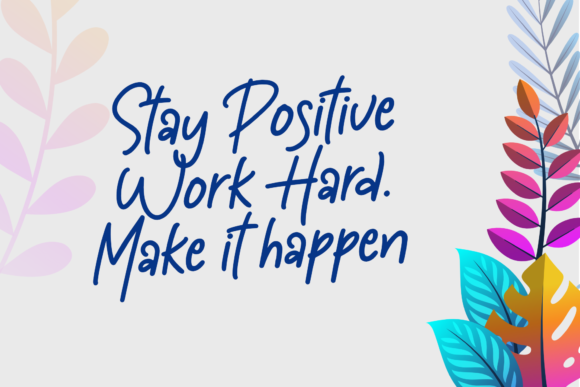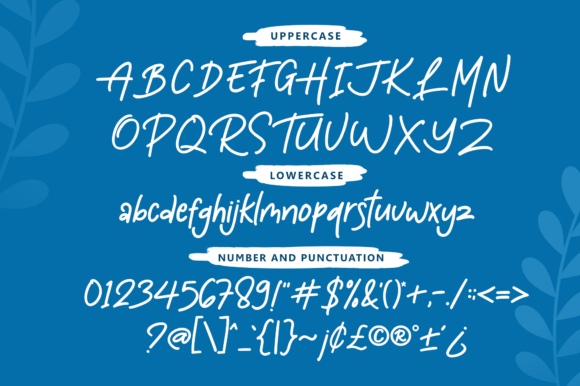
Roller Hopestar Font
db-ku.com - Script & Handwritten -- Roller Hopestar is a beautiful and trendy handwritten font. It is the best choice for creating eye catching logos, branding and quotes. Every letter has a unique and beautiful touch, which will make your design come alive!